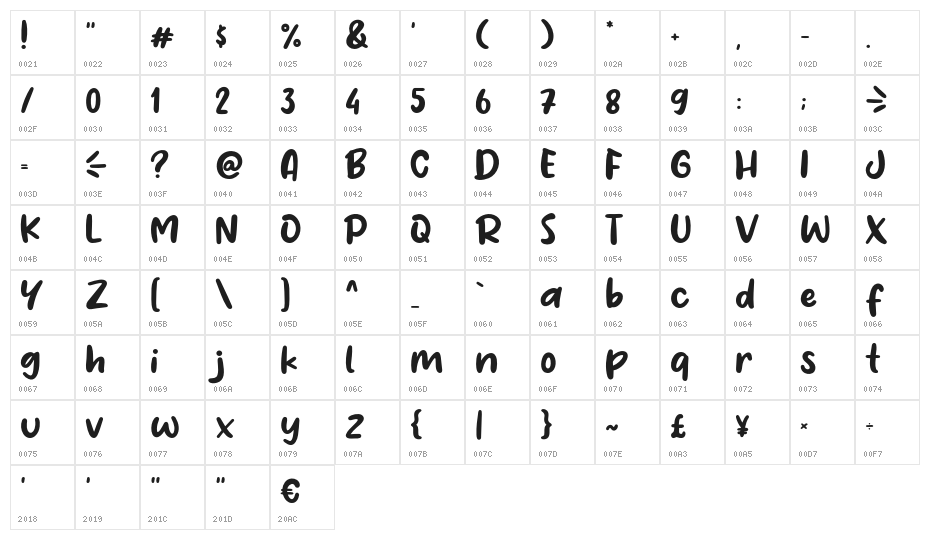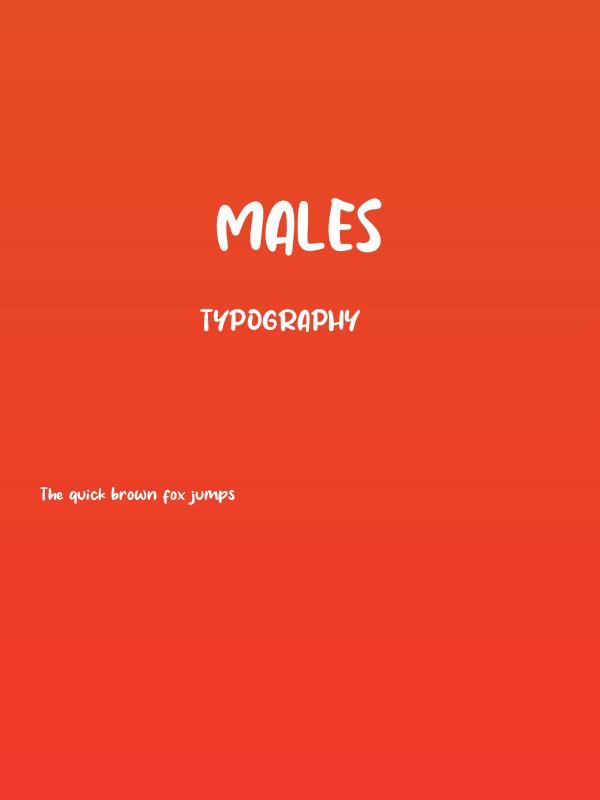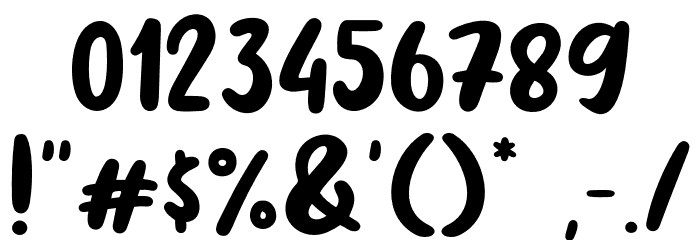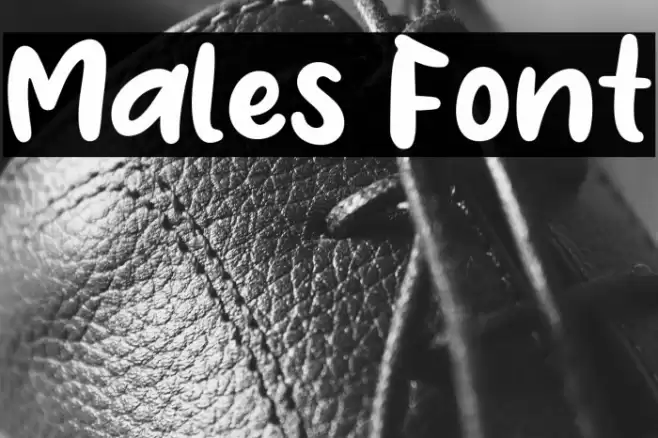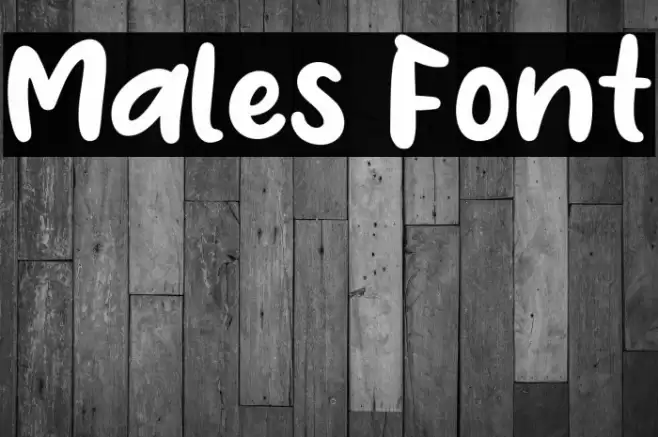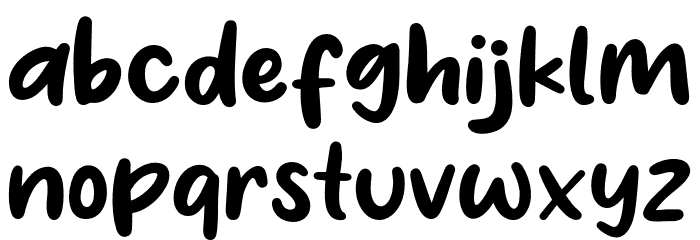
Males Font
Males Description
This font features a playful and bold handwritten style, characterized by its rounded and smooth letterforms. The uppercase and lowercase letters maintain a consistent thickness, giving the font a cohesive look. The numbers and special characters follow the same design principles, ensuring uniformity across all glyphs. The overall appearance is friendly and approachable, making it suitable for informal and creative projects. The strokes are thick and even, providing a strong visual presence without overwhelming the viewer. This font is versatile, able to convey a sense of fun and creativity while remaining legible.
| Overall Style | Playful |
| Use Case | Headlines, Logos, Informal Text |
| Proposed Projects | Ideal for children's books, greeting cards, playful branding, and social media graphics. |